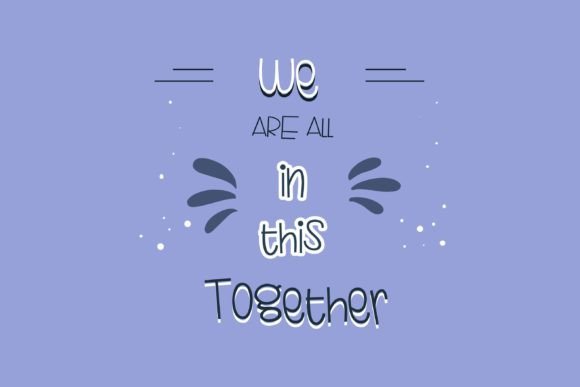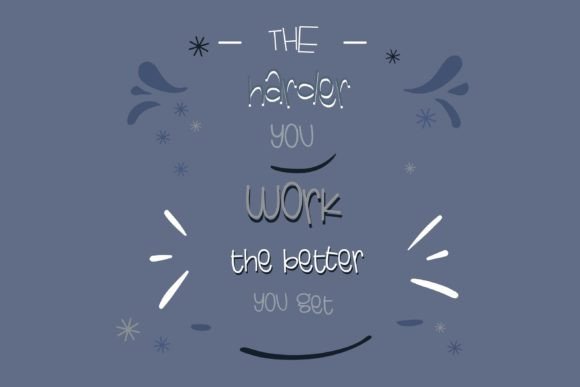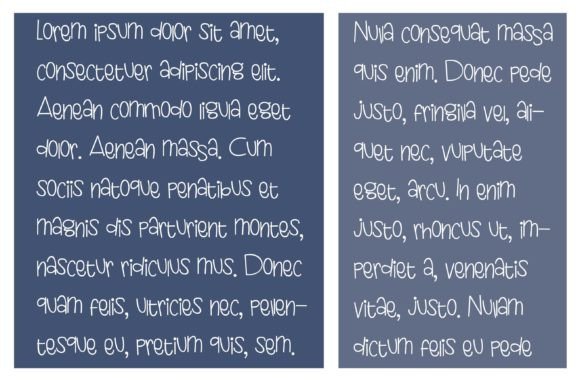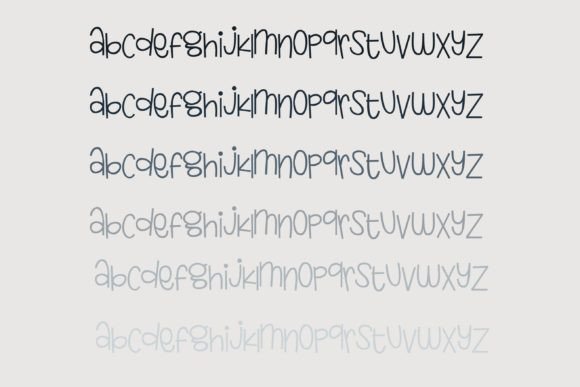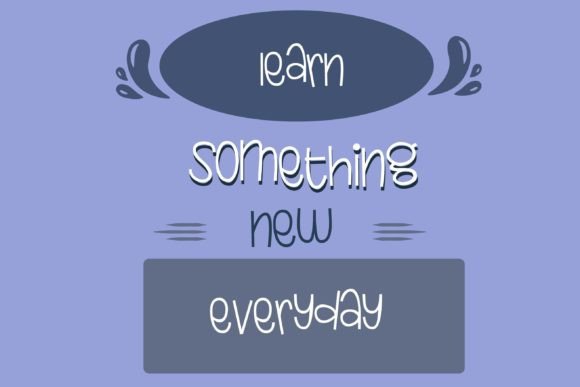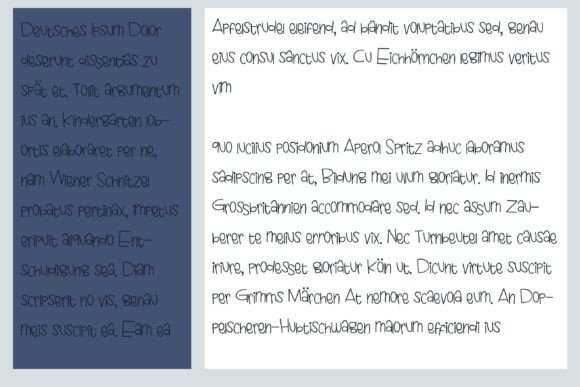
Harebrained Font: A Fun and Whimsical Hand-Crafted Sans Serif
Are you tired of using the same old boring fonts for your designs? Look no further than the Harebrained Font, a hand-crafted sans serif that’s sure to add a touch of whimsy and youthfulness to your projects. With its unique toggle throughout, this font is perfect for designers and crafters looking to add some personality to their work.
A hand-crafted font, also known as a handwritten font, is a typeface that is designed to look like it was written by hand. This type of font is often used for invitations, greeting cards, and other items where a personal touch is desired. Handwritten fonts can be either formal or informal, and they can be used for a variety of purposes, from digital designs to print materials.
The Characteristics of Harebrained Font
The Harebrained Font is a sans serif font, which means it doesn’t have the small lines or flourishes at the ends of the letters. This gives it a clean and modern look that’s perfect for designs where you want the text to be the focus. The font is also hand-crafted, which means that each letter is unique and has its own character. This gives the font a personal and human touch that’s hard to find with computer-generated fonts.
The Benefits of Using Harebrained Font
So why should you use the Harebrained Font for your designs? Here are just a few benefits:
- Unique and eye-catching: The Harebrained Font is a one-of-a-kind font that’s sure to grab attention. Its unique toggle and hand-crafted letters make it stand out from more traditional fonts.
- Youthful and playful: This font has a youthful and playful vibe that’s perfect for designs where you want to convey a sense of fun and energy.
- Versatile: The Harebrained Font can be used for a variety of purposes, from digital designs to print materials. It’s perfect for invitations, greeting cards, posters, and more.
- Easy to read: Despite its playful nature, the Harebrained Font is easy to read and understand. This makes it perfect for designs where you need to communicate a message clearly.
How to Use Harebrained Font
So how can you use the Harebrained Font in your designs? Here are a few ideas:
- Invitations: Use the Harebrained Font to create unique and eye-catching invitations for parties, weddings, and other events.
- Greeting cards: This font is perfect for creating handmade greeting cards for birthdays, holidays, and other special occasions.
- Posters: Use the Harebrained Font to create bold and eye-catching posters for events, promotions, and more.
- Digital designs: This font can be used for digital designs such as social media graphics, blog posts, and more.
The Bold Version
The Harebrained Font also comes with a bold version, which can be used to add emphasis to your designs. The bold version has the same hand-crafted look as the regular version, but with thicker lines and a more dramatic appearance. This makes it perfect for headings, titles, and other elements where you want to draw attention.
In conclusion, the Harebrained Font is a fun and whimsical hand-crafted sans serif that’s perfect for designers and crafters looking to add some personality to their work. With its unique toggle and youthful lettering, this font is sure to grab attention and convey a sense of fun and energy. Whether you’re creating invitations, greeting cards, posters, or digital designs, the Harebrained Font is a great choice.
Here are a few tips and tricks for using the Harebrained Font:
- Experiment with different colors: The Harebrained Font looks great in a variety of colors, so don’t be afraid to experiment and find the perfect color for your design.
- Use it with other fonts: The Harebrained Font can be paired with other fonts to create a unique and interesting look. Try pairing it with a serif font for a contrasting look.
- Pay attention to spacing: Make sure to pay attention to the spacing between letters and words when using the Harebrained Font. This will help ensure that your design looks clean and easy to read.